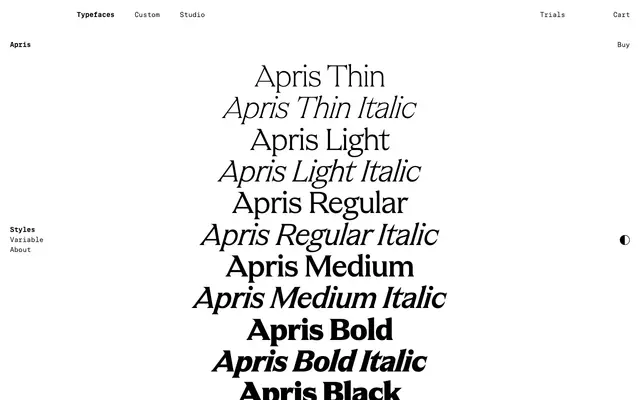
Apris
A contemporary Latin serif with concave, pointed serifs and acute trumpet-bell terminals, drawn in six weights from Thin to Black with matching italics.
Apris is a present-day reading of the 19th-century Latines genre (also known as Renaissance- or Etienne-Schriften, Latin and Runic, or Celtic). Concave serifs, shoulders that taper to a point and long-drawn unseriffed terminals give it a sharp, almost prickly silhouette. The italic follows an inclined-roman model with no cursive or narrowed shapes, in line with the historical precedent that Latines rarely had a true italic. The family spans six weights from Thin to Black with matching italics: lighter cuts can signal luxury and loftiness, the medium cuts read as self-evident shop-sign and nameplate type, and the Bold and Black get funkier with overtones of 1970s display typography. Stylistic Sets offer monocular alternates for a and g and an R with a pointed leg.
Schick Toikka frame Apris as a contemporary take on the 19th-century Latines genre, marked by pointed serifs and capitals of harmonised widths, with concave serifs, acute trumpet-bell or thorn-like terminals and shoulders that taper to a point.